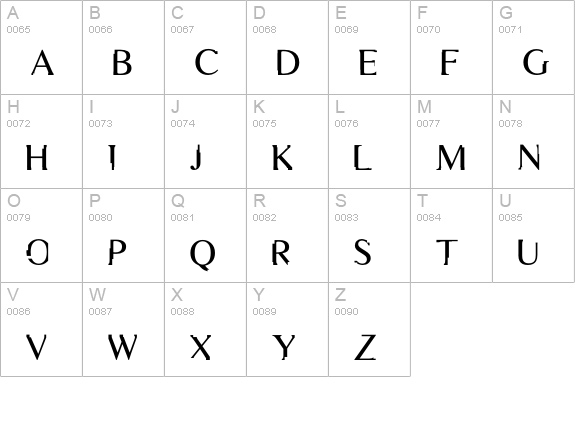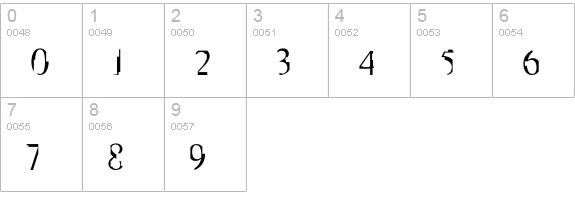
Scarecrow Font Details
Introducing Scarecrow font, a captivating typeface that embodies the essence of mysterious charm and rustic elegance. With its unique combination of curvaceous and jagged letterforms, Scarecrow font captures the imagination and transports you to a world where autumn leaves dance in the wind and secrets whisper through the fields. Designed with meticulous attention to detail, Scarecrow font exudes a hauntingly beautiful aesthetic that is perfect for a wide range of design projects. Whether you're creating invitations for a rustic wedding, designing a vintage-inspired logo, or crafting a bewitching Halloween poster, this font will effortlessly elevate your creations to new heights. But the best part? Scarecrow font is freely available to download at FontsMarket.com. Yes, you heard that right – this stunning typeface can be yours without spending a penny. Embrace the opportunity to bring a touch of enchantment to your designs, all while staying within your budget. With its extensive character set, Scarecrow font offers versatility and flexibility. From lowercase letters that gracefully flow together, to uppercase letters that command attention, every character has been carefully crafted to ensure a seamless visual experience. Additionally, the font includes a variety of ligatures and alternate characters, allowing you to add even more depth and personalization to your designs. Whether you're a professional designer or a passionate hobbyist, Scarecrow font is a must-have in your typographic arsenal. Its timeless appeal and remarkable versatility make it suitable for a plethora of design projects, ensuring that your creations will always stand out from the crowd. So why wait? Unleash your creativity and download Scarecrow font for free at FontsMarket.com today. Let this captivating typeface breathe life into your designs and transport your audience to a world filled with magic and wonder.